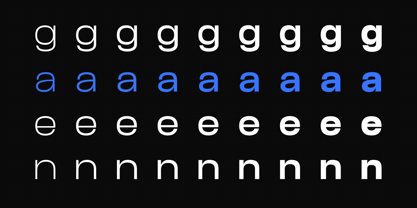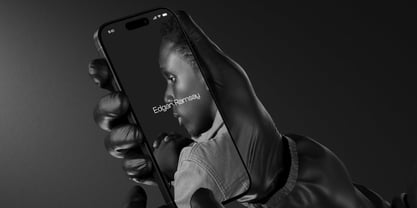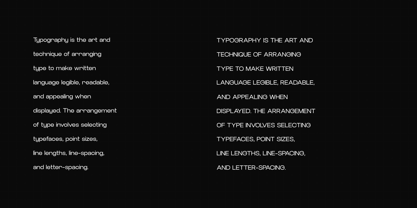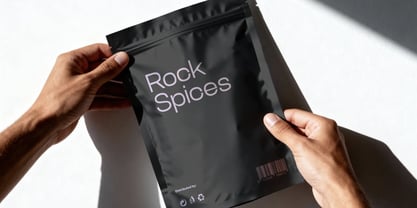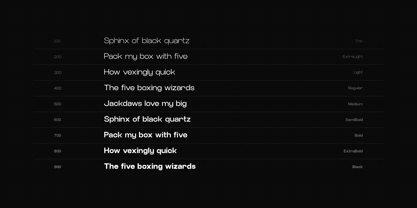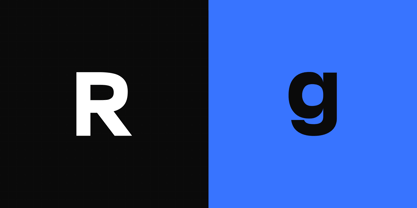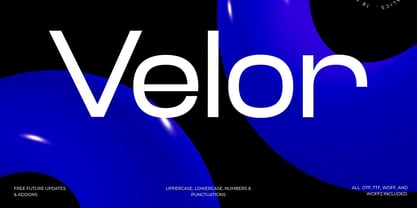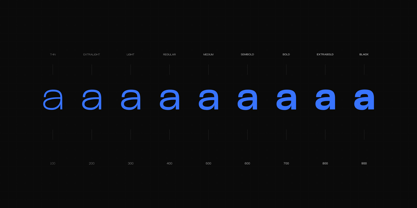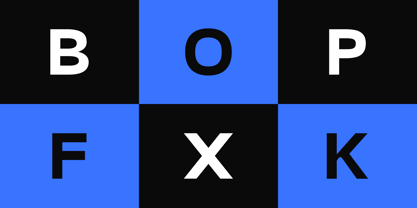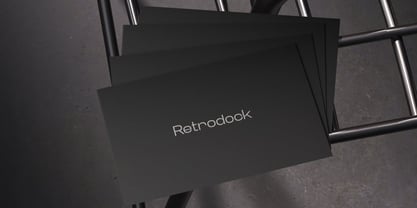
Velor Sans Serif
The Velor Sans Serif Font Family was designed by Ancy George and published by Webhance. Velor Sans Serif contains 18 styles and family package options. More about this family
Velor is a clean, geometric sans-serif font that excels in modern branding and logo design. Its minimalist style makes it a great choice for packaging and editorial layouts, as well as social media graphics. With its elegant lines and versatility, Velor stands out in both digital and print applications, making it ideal for contemporary design projects.